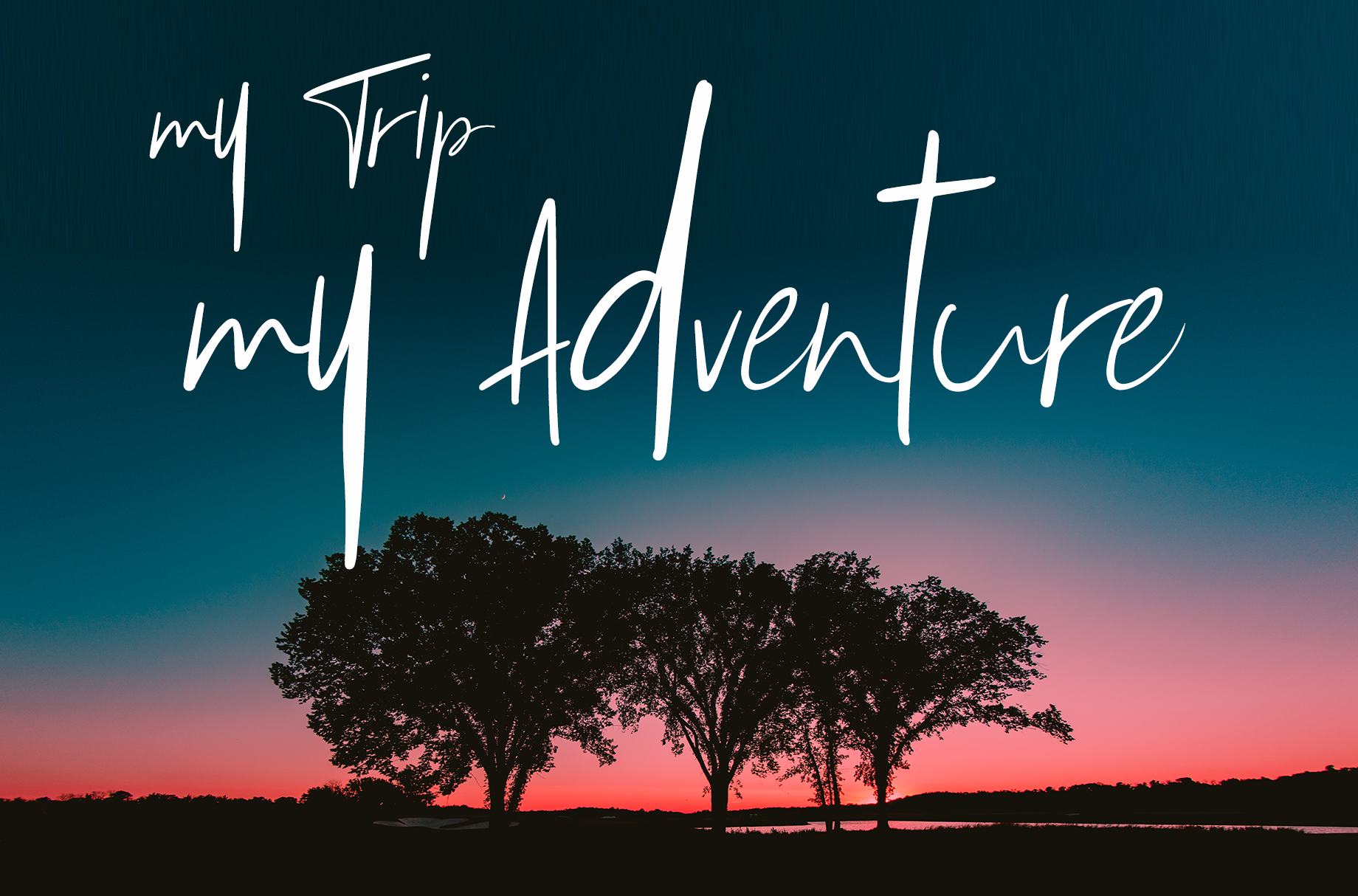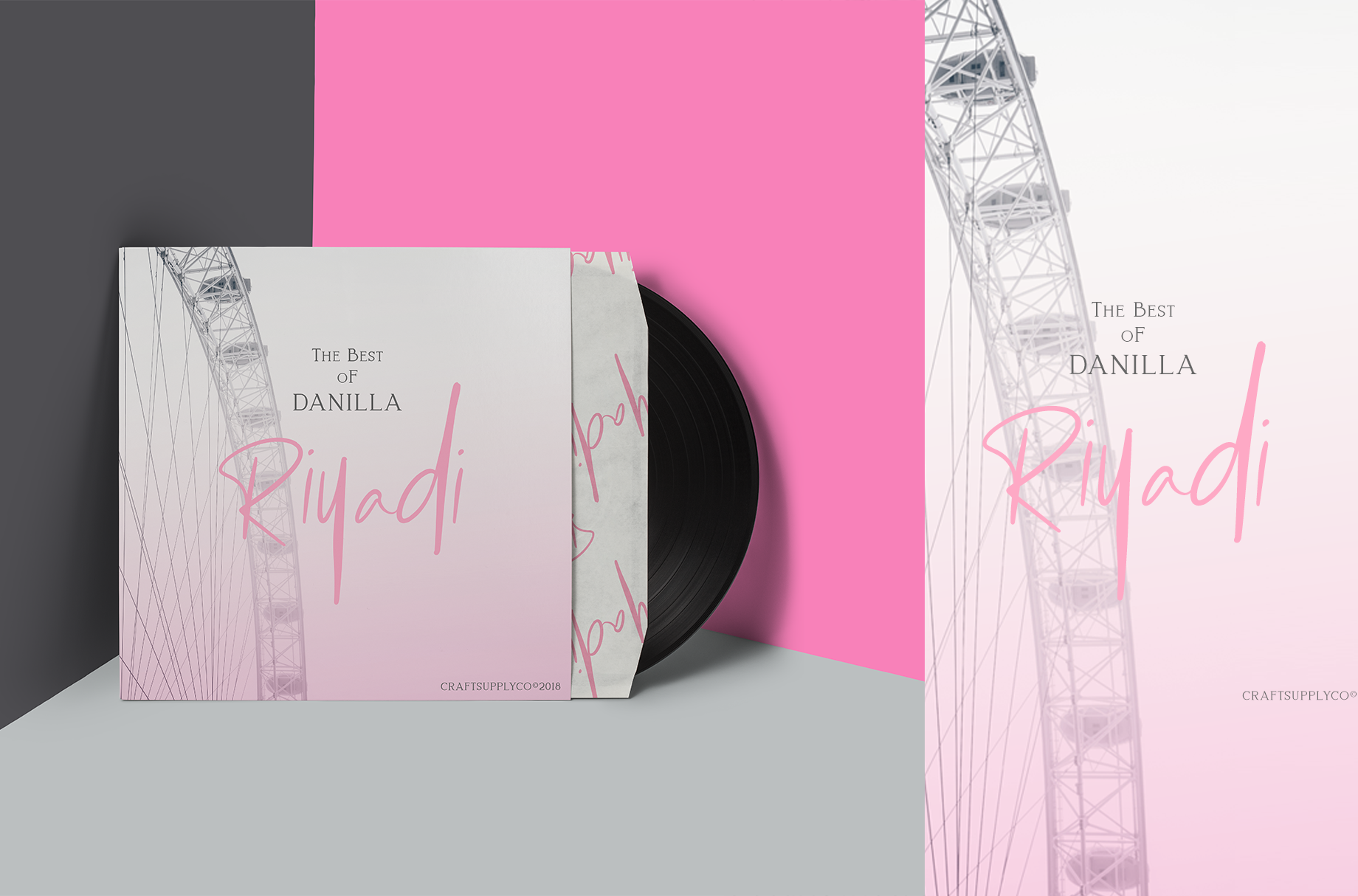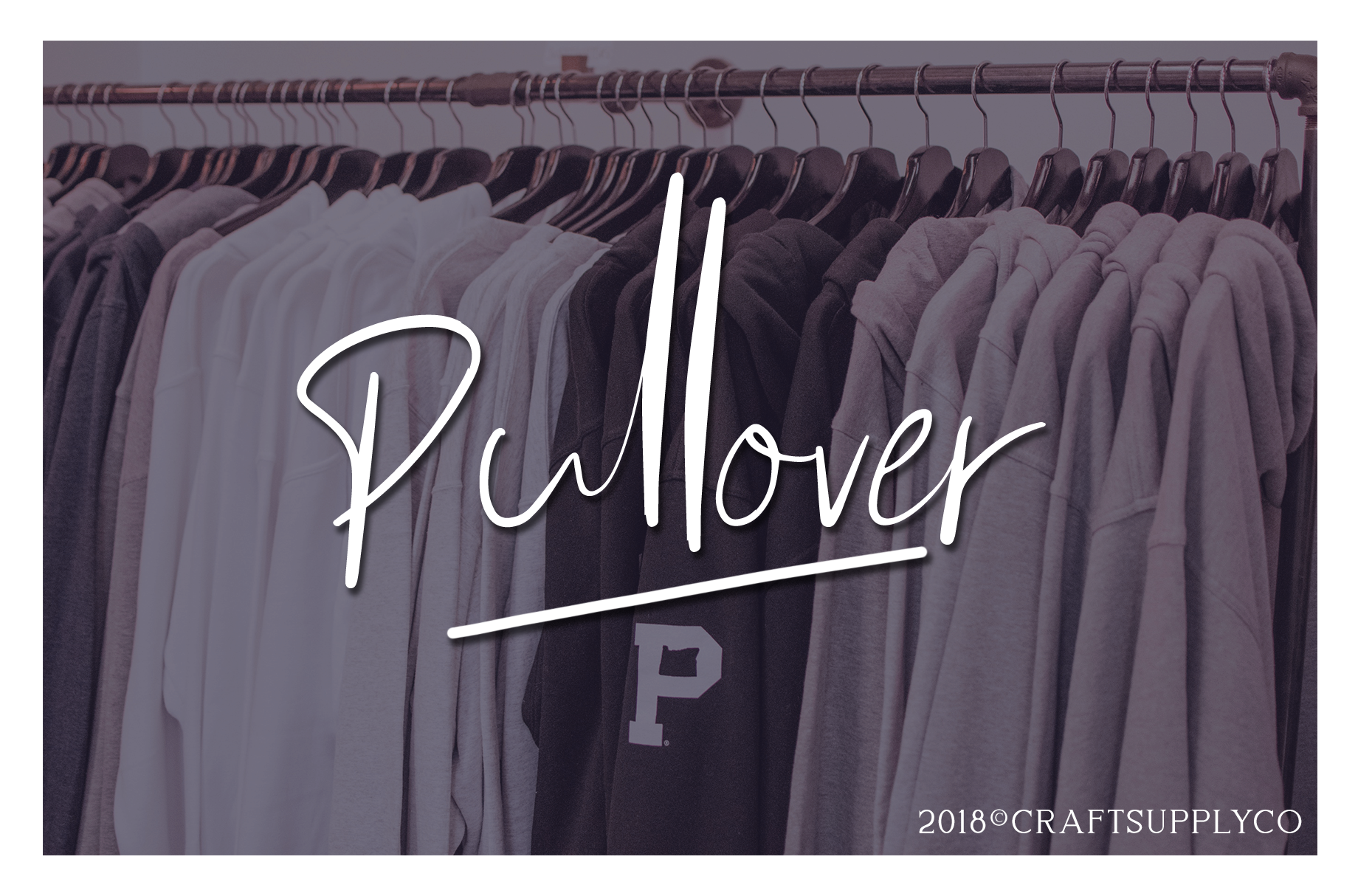
Introduction to Pommel Font
Pommel is a handwritten font based on a real handwriting.
It works great for fashion & apparel, e-commerce, blogging, wedding boutiques and much more It has a upscale, chic look, which helps to elevate the image of your design.